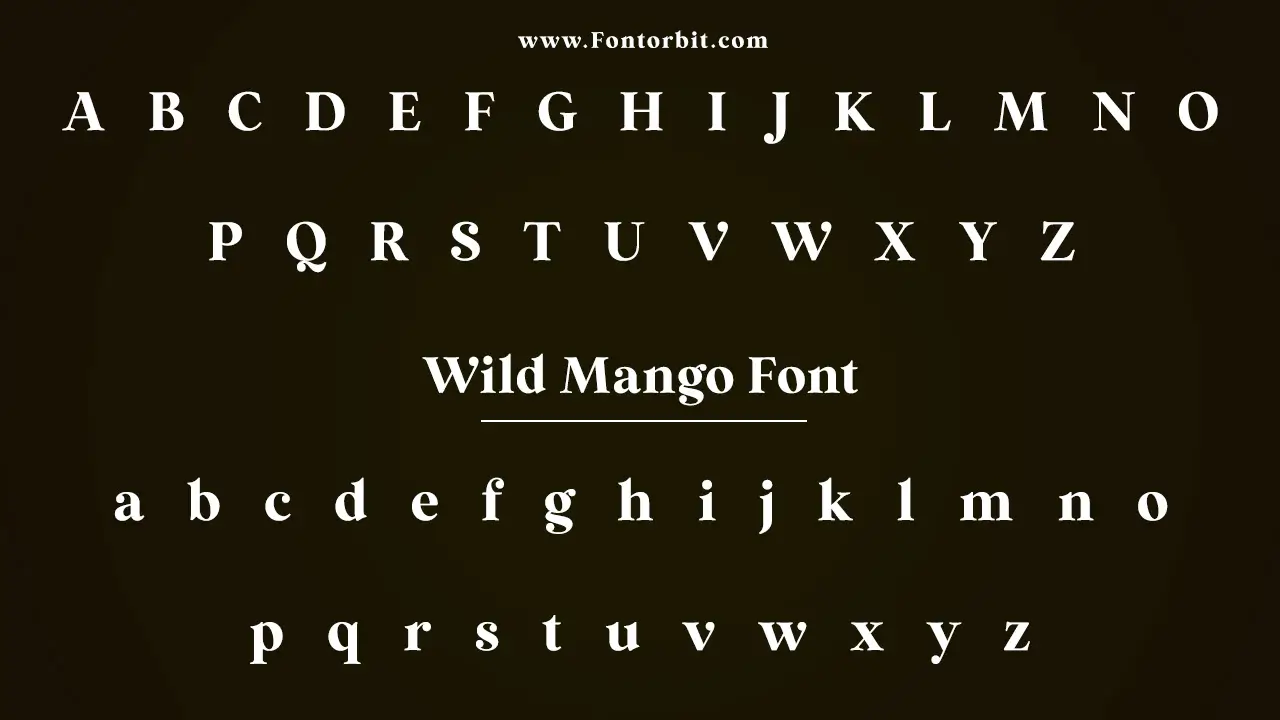
Wild Mango, a modern serif font by Kaitlynn Albani of KA Designs, masterfully combines elegance and versatility. With its decorative alternates and vintage charm, it’s perfect for a wide range of designs, from free-spirited boho styles to classy editorial looks. Whether for logos, branding, prints, or social media, Wild Mango adds a touch of sophistication to every project.
Wild Mango Font Information
| Name | Wild Mango |
| Style | Serif, Modern Serif, Decorative |
| Designer | Kaitlynn Albani |
| Type | Display Font |
Wild Mango Font Family Includes
Wild Mango includes a single style with numerous fun stylistic alternates embedded into the font file, accessible via programs like Photoshop and Illustrator.
- Wild Mango Regular
Where Wild Mango Is In Use
- Logos: Ideal for classy and chic brand identity.
- Branding: Excellent for creating signature fonts for wide-ranging brand styles.
- Social Media: Perfect for Instagram posts, Pinterest pins, and stories.
- Prints and Crafts: Used in posters, invitations, stickers, and shirts.
- Editorial Designs: Works beautifully for magazines, headings, and calligraphy-inspired layouts.
2.Does Wild Mango Have Stylistic Alternates?
Yes, Wild Mango includes decorative stylistic alternates that offer design flexibility. These alternates can help you create more unique and creative layouts by giving you access to alternate letterforms, which can add variety and flair to your designs. Whether you’re working on logos, branding, or editorial layouts, these stylistic alternatives allow you to personalize your design while maintaining the font’s elegance.
3.Can Wild Mango Be Used For Branding?
Absolutely! Wild Mango is an excellent choice for branding and logo design. Its modern serif style and decorative elements make it ideal for creating classy, sophisticated brand identities.
Whether you’re designing a luxury brand or a creative business, this font will add a professional and elegant touch to your branding materials, including business cards, website headers, and packaging designs.
4.What Type Of Font Is Wild Mango?
Wild Mango is a modern serif font with decorative elements that give it a distinctive and stylish look. The font has a balanced structure with serif details that lend it an air of elegance and refinement. Its decorative flourishes make it stand out, perfect for use in more formal or creative design contexts where you want to combine professionalism with a bit of artistic flair.
5.Where Can I Use Wild Mango?
Wild Mango is versatile and can be used in various design applications. It’s ideal for:
- Logo design and brand identity.
- Printed materials like brochures, flyers, and posters.
- Stickers and t-shirts for custom merchandise.
- Editorial layouts, including magazines, books, and newspapers.
- Craft projects like invitations, greeting cards, and more.
- Its decorative yet professional style makes it a great option for projects that need a combination of elegance and creative expression.